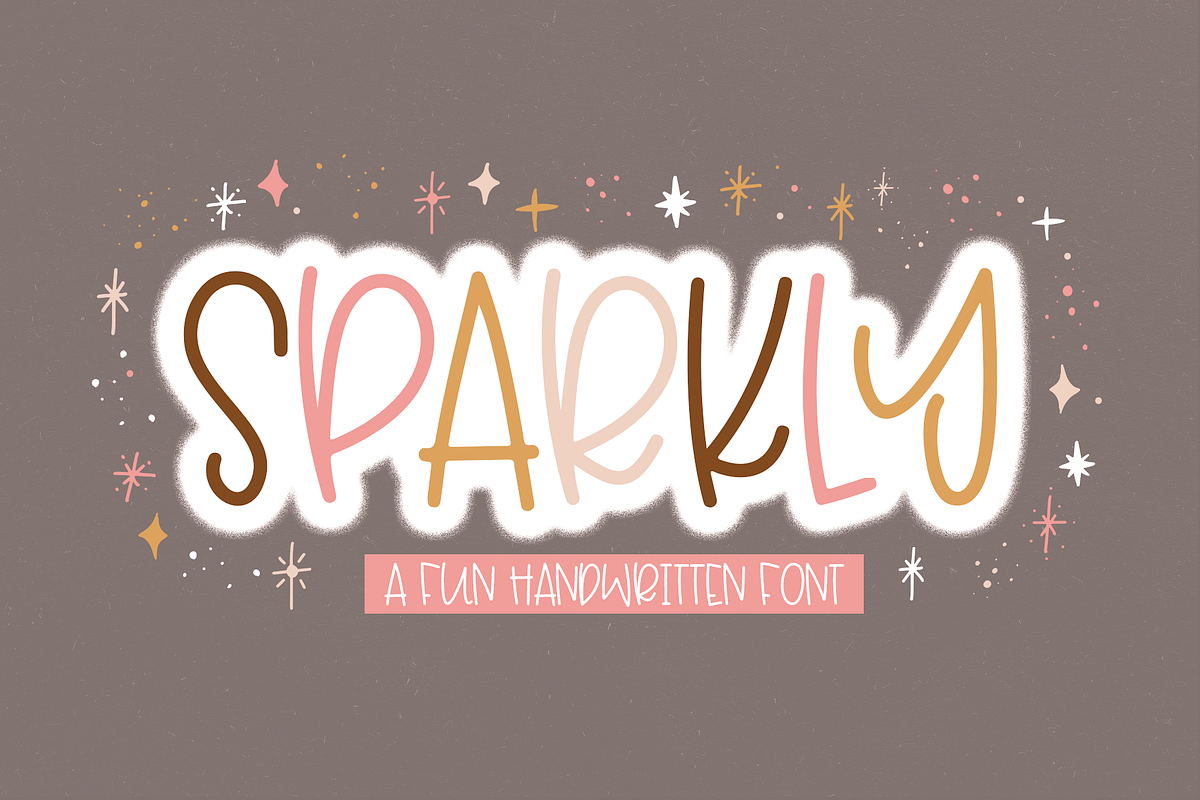
Sparkly | Fun Handwritten Font Free Download is a playful and whimsical handwritten typeface designed to add a touch of fun and creativity to your designs. With its bouncy, expressive strokes and light-hearted feel, this font is perfect for social media graphics, event invitations, children’s books, greeting cards, and any creative project that needs an energetic, personalized touch.
The friendly, informal look of Sparkly makes it ideal for projects aimed at younger audiences, casual branding, or anything that needs to evoke a sense of joy and creativity. It’s a versatile script font that brings a sense of hand-crafted charm to your work.